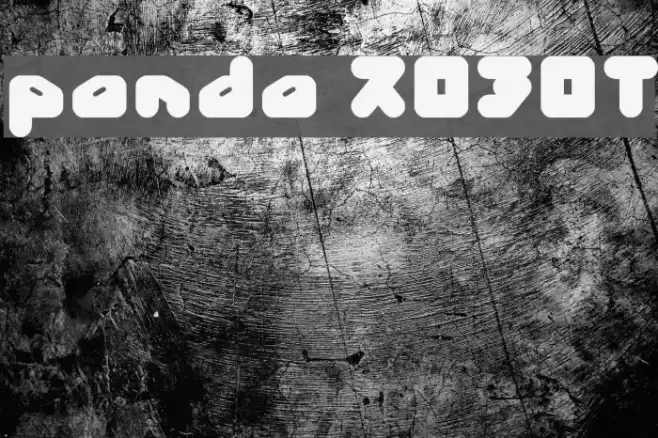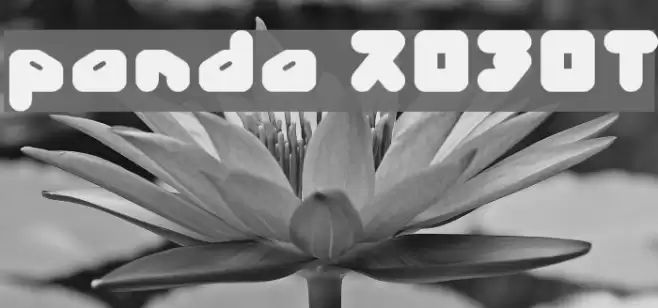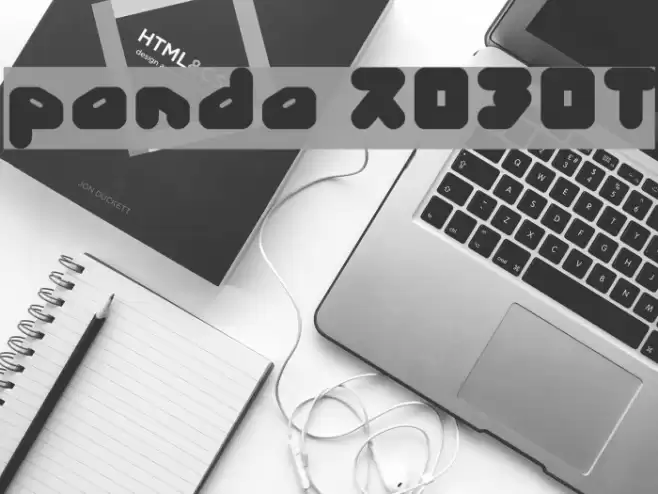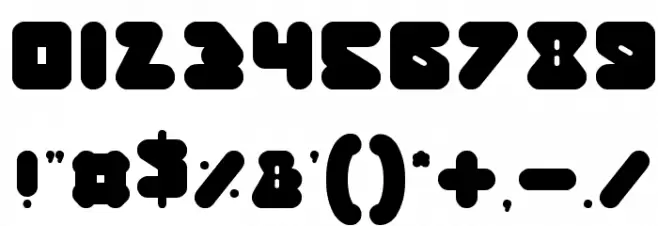
panda ROBOT Font
panda ROBOT Description
This font features a bold and rounded style with a futuristic and playful appearance. The characters are thick and have a uniform weight, giving them a strong presence. The rounded edges and geometric shapes create a modern and approachable feel, making it suitable for eye-catching designs. The font maintains consistent spacing between characters, ensuring readability despite its unique style. Its boldness and distinctiveness make it ideal for projects that require a standout typeface.
A bold, rounded, and futuristic font with a playful and modern appearance from Uncategorized fonts.
- Proposed Projects: Ideal for branding, posters, video game graphics, and any project needing a bold, modern look.